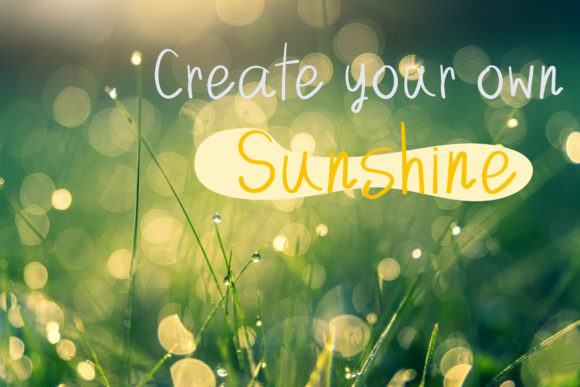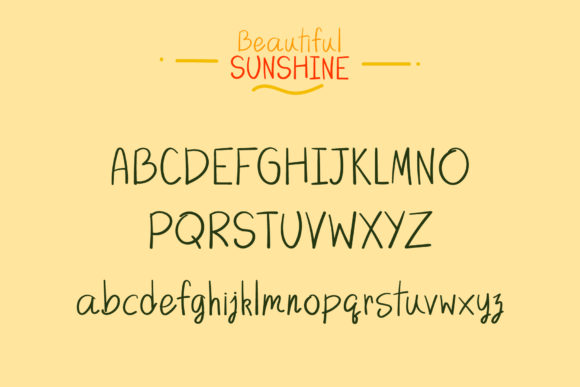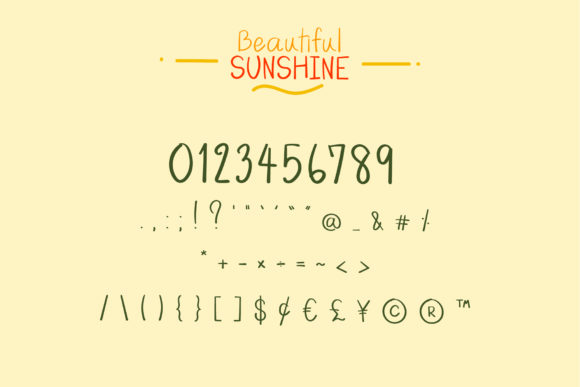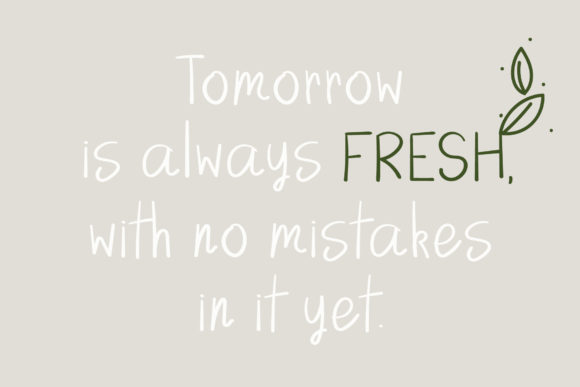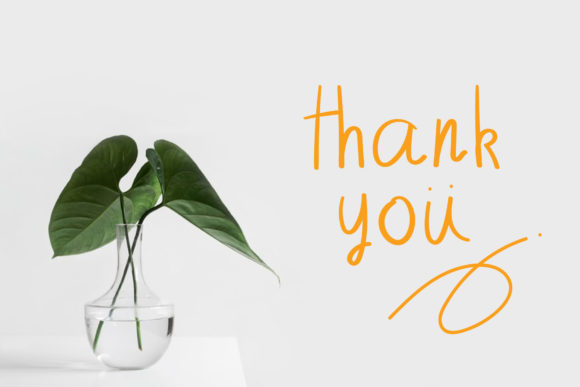
Beautiful Sunshine Font
About Beautiful Sunshine Font
Beautiful Sunshine embodies fun, quirkiness and authenticity. This enchanting handwritten font will turn any creative idea into a true standout.